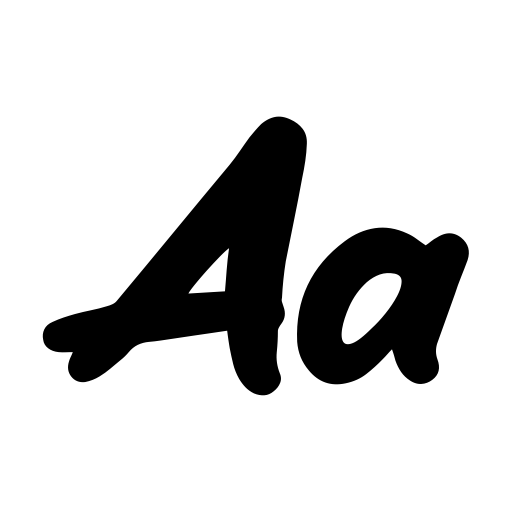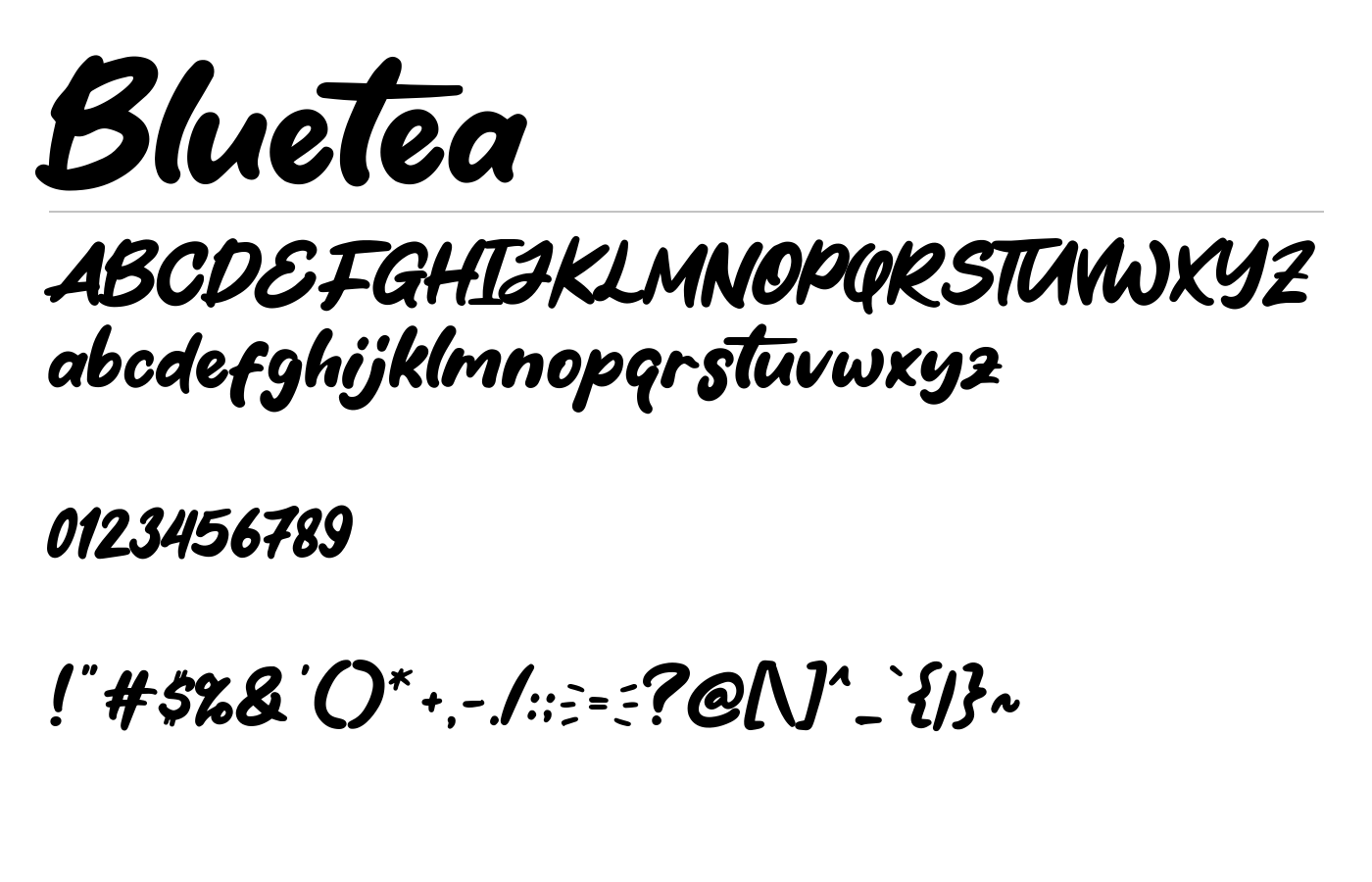
Bluetea is a bold, casual script font with a smooth, rounded stroke that mimics natural handwriting, offering an energetic and friendly vibe. Its lively letterforms and slightly italic style make it perfect for branding, packaging, and headlines where a personal yet impactful touch is desired. Ideal for creative projects and playful designs, Bluetea adds a warm and approachable feel without sacrificing readability.
Bluetea Font
About Bluetea Font
| Font family | Bluetea Font |